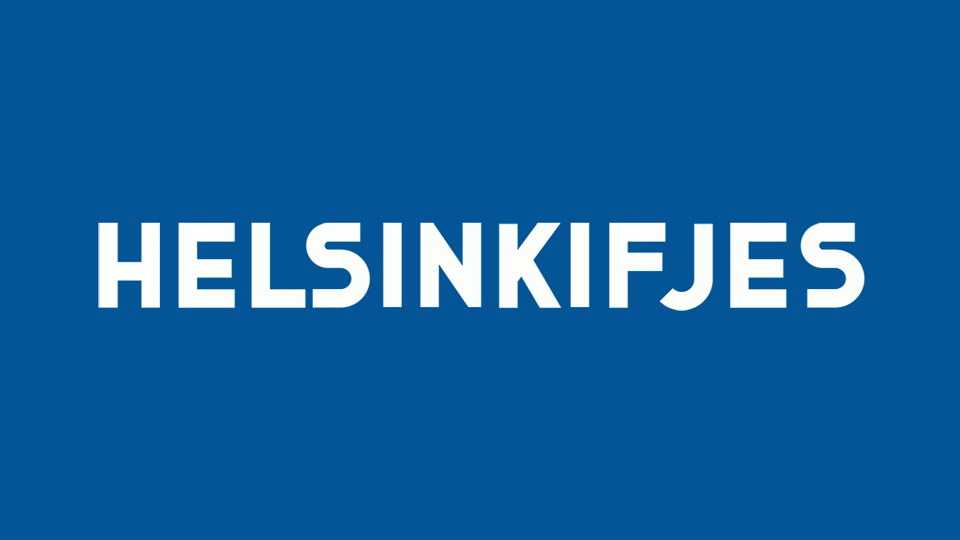
Download Helsinkifjes font, a bold geometric typeface inspired by the typography found on the memorial monument for fallen German soldiers of the Finnish civil war.
Designer: Jon Arne Berg